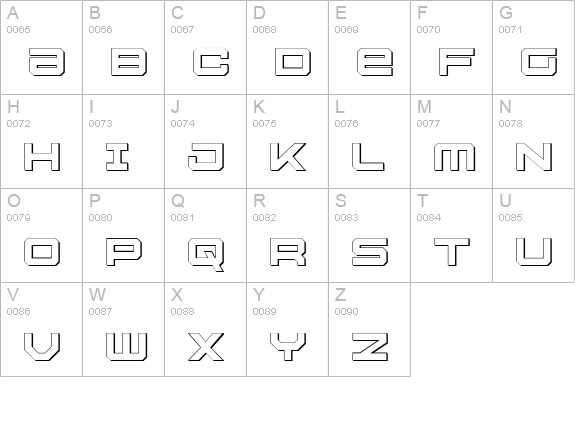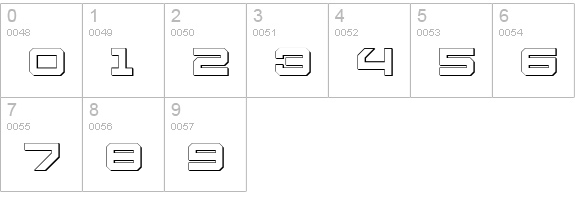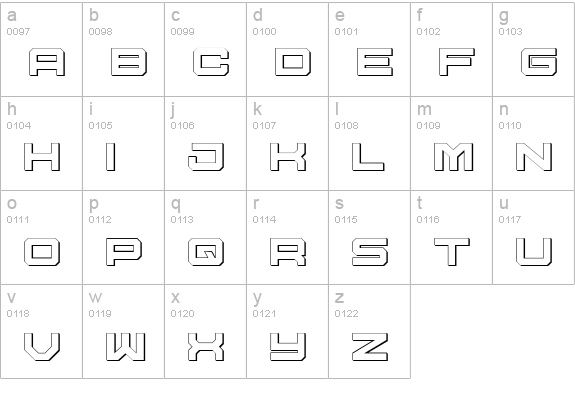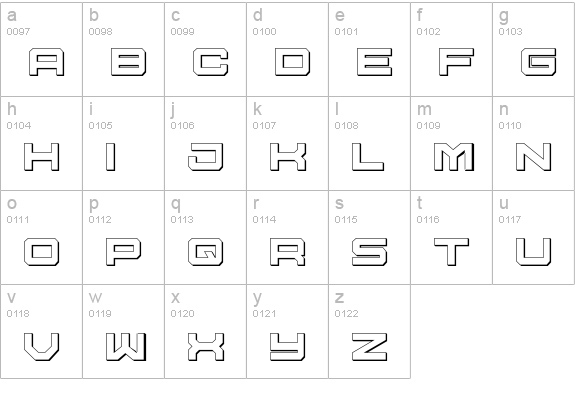
Introducing the U.S.S. Dallas Outline font - a sleek and modern typeface that exudes sophistication and style. With its clean lines and contemporary design, this font is perfect for a wide range of creative projects. Whether you're designing a logo, creating a poster, or crafting a website, the U.S.S. Dallas Outline font is sure to make a bold statement. Best of all, this font is completely free to download at FontsMarket.com. Simply visit the website and start using this versatile font in your projects today. Don't miss out on the opportunity to add the U.S.S. Dallas Outline font to your font collection - download it now and let your creativity shine!